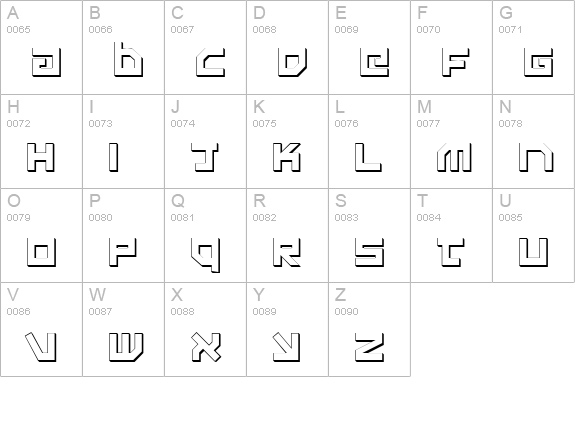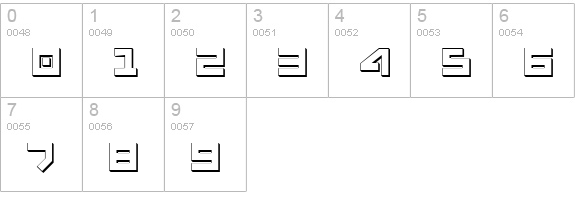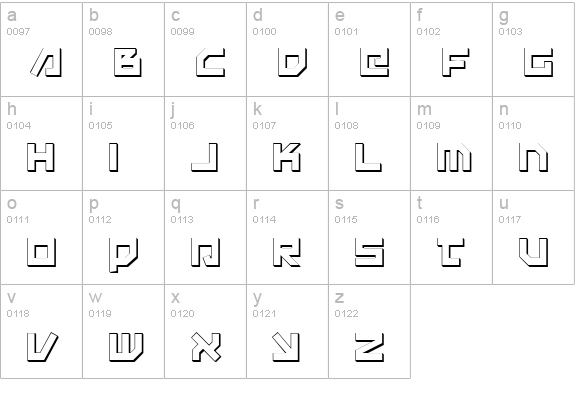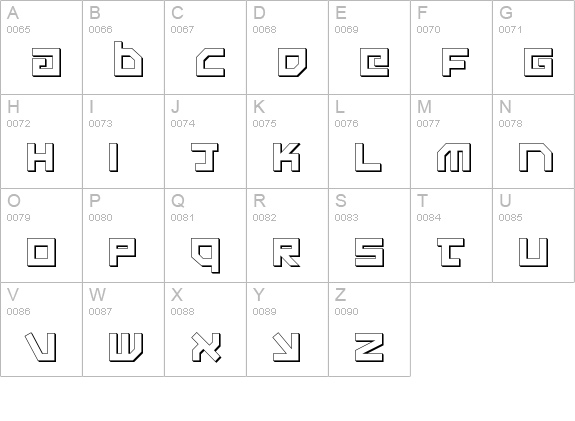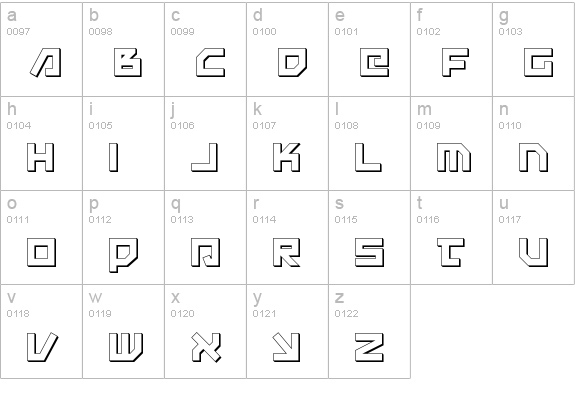
Uno Estado 3D Font Details
Uno Estado 3D font is a striking and modern typeface that combines sleek lines with a three-dimensional effect, making it perfect for adding depth and dimension to your designs. This unique font exudes a sense of sophistication and creativity, making it ideal for a wide range of projects, from branding to advertising to social media graphics. With its clean and stylish appearance, Uno Estado 3D font is sure to capture the attention of your audience and elevate the look of your designs. Whether you are creating posters, logos, or website headers, this font will help you stand out from the crowd and make a lasting impression. Best of all, Uno Estado 3D font is available for free download at FontsMarket.com, making it accessible to designers of all levels. Don't miss out on the opportunity to add this versatile and eye-catching font to your collection today!